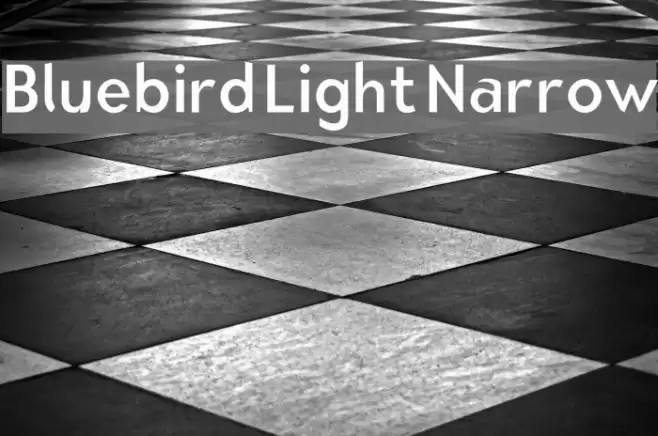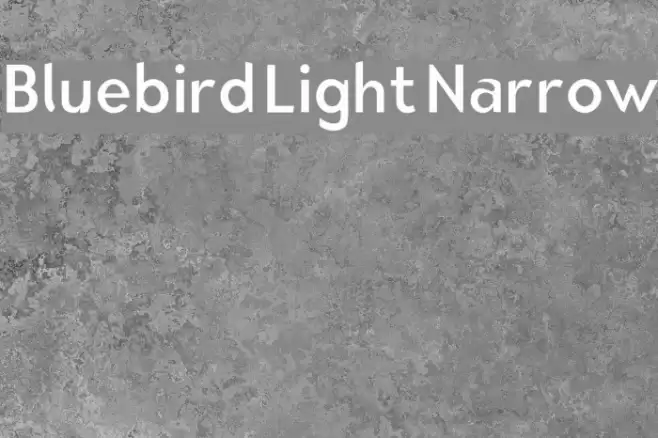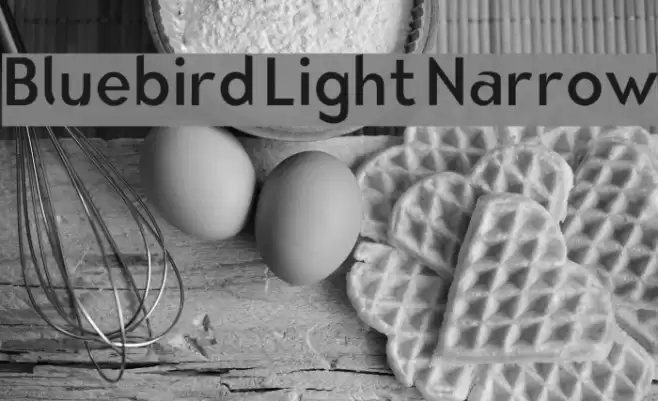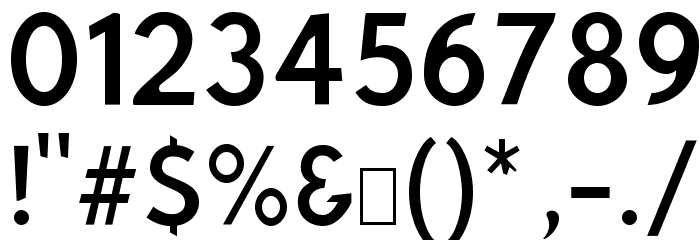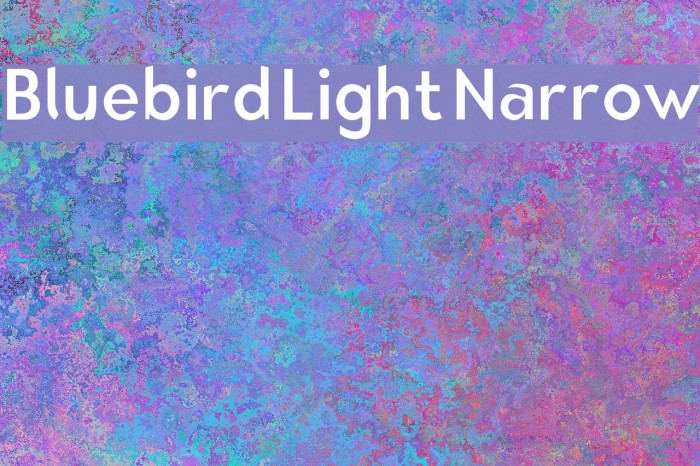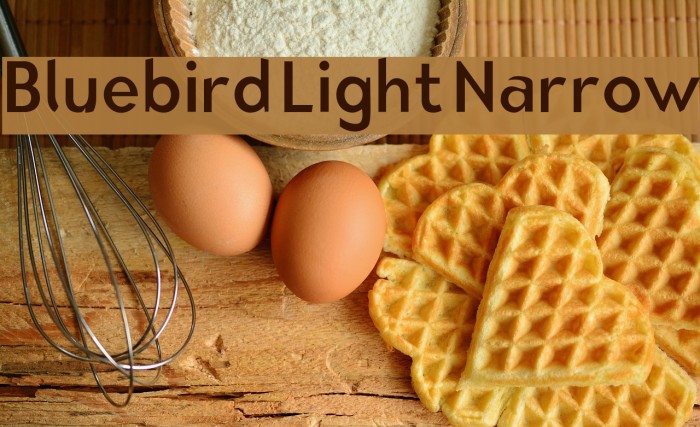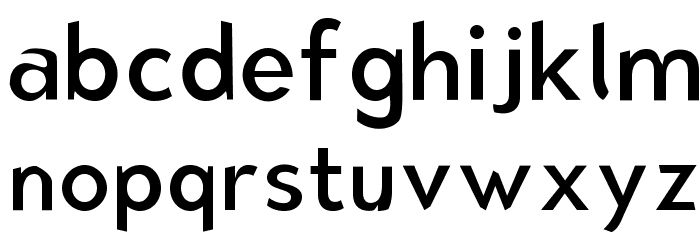
Bluebird Light Narrow Font
Bluebird Light Narrow Description
This font features a clean and modern sans-serif design with a light weight and narrow width. The characters are well-defined with a consistent stroke width, providing a sleek and contemporary appearance. The uppercase and lowercase letters maintain a uniform style, enhancing readability and visual appeal. The numerals are clear and distinct, making them suitable for various applications. Special characters are included, offering versatility for different design needs. The overall aesthetic is minimalist, making it ideal for projects that require a modern and professional look.
A modern, light, and narrow sans-serif font with clean lines and a minimalist style from Uncategorized fonts.